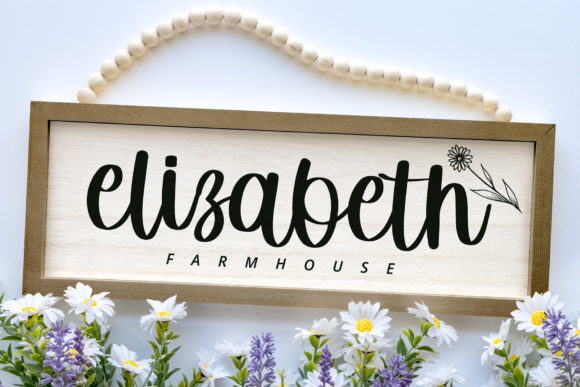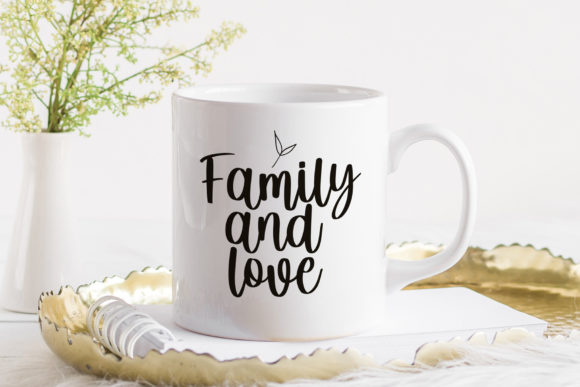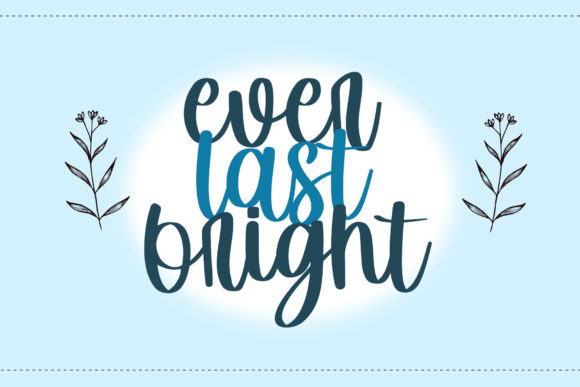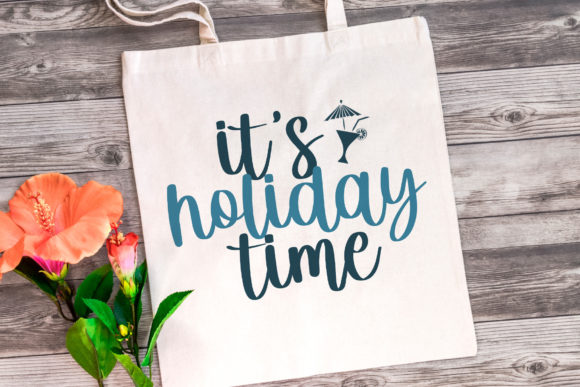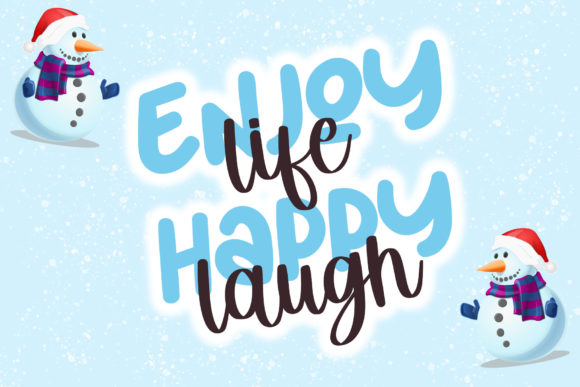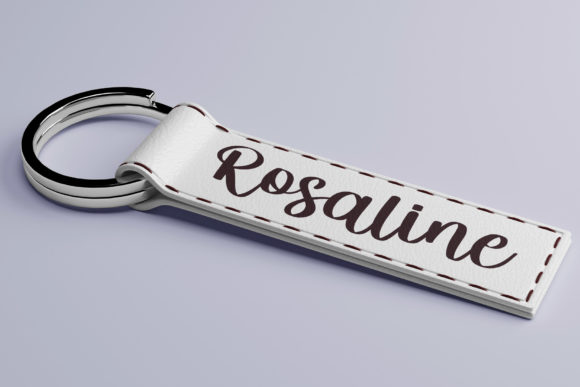
The Perfect Match: Unveiling the Bride Snow Font
Have you ever been brainstorming a project, only to find that the perfect font is just out of reach? I know I have. As a designer, there’s nothing quite like the thrill of discovering a new font that brings your vision to life. And that’s exactly what I want to share with you today – a font that’s sure to become your new favorite: the Bride Snow Font.
This sweet and charming handwritten font is perfect for any project that needs a touch of whimsy and romance. From wedding invitations to branding and logo design, the Bride Snow Font is a versatile choice that’s sure to delight. Whether you’re a seasoned designer or just starting out, this font is a valuable addition to your toolkit, offering a unique blend of boldness and cuteness that’s sure to capture attention.
- Font Family: Bride Snow is a unique, elegant script font.
- Unique Characteristics: Features a beautiful, flowing script design with intricate details, perfect for wedding invitations, greeting cards, and other special occasions.
- Font Style: Comes in a single style, but with various font weights and ligatures to add depth and visual interest to your designs.
I recently had the chance to work with the “Bride Snow Font” and here’s my honest review. ✨ One of the things that I really liked about this font is its elegant and sophisticated design. It’s perfect for creating beautiful wedding invitations, save-the-dates, or any other wedding-related materials. The font is also highly customizable, which makes it a great choice for designers who want to add a personal touch to their projects.
Another aspect that I appreciated was the wide range of styles and sizes that the font offers. This allows designers to experiment with different combinations and create unique designs that stand out from the crowd. ✨ The font also includes a variety of ornaments and swashes that can be used to add a touch of elegance and sophistication to designs.
- ⚠️ Some users may find the font too ornate or busy, which can make it difficult to read at larger sizes.
Overall, I think the “Bride Snow Font” is a beautiful and elegant font that is perfect for wedding-related designs. While it may have some limitations, the font’s customization options and wide range of styles make it a great choice for designers who want to create unique and beautiful designs.
The Bride Snow Font is ideal for wedding invitations, wedding stationery, and other romantic designs.
To get the most out of this font, use it in combination with floral patterns, lace textures, and soft pastel colors.
Experiment with different font sizes and styles to create a unique and eye-catching design.